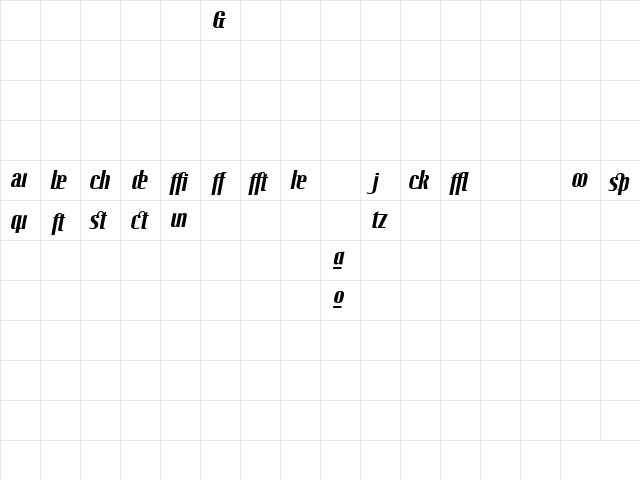
LTOctane Addition BoldItalic
Design Context for LTOctane Addition Typeface
LTOctane Addition offers clean, dependable letterforms without strong stylistic allegiance, making it a practical choice for designers who need flexibility. The slanted form adds forward momentum and visual energy. Its bold stroke weight gives it real presence on the page.